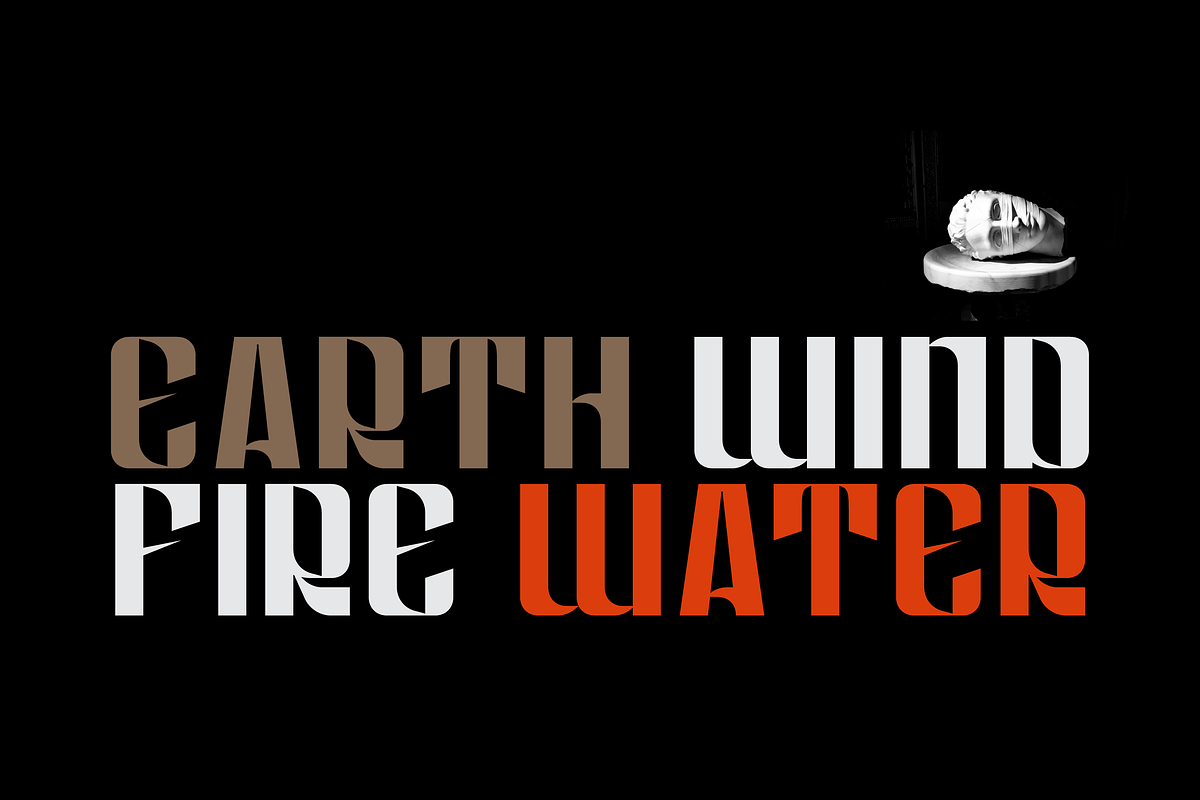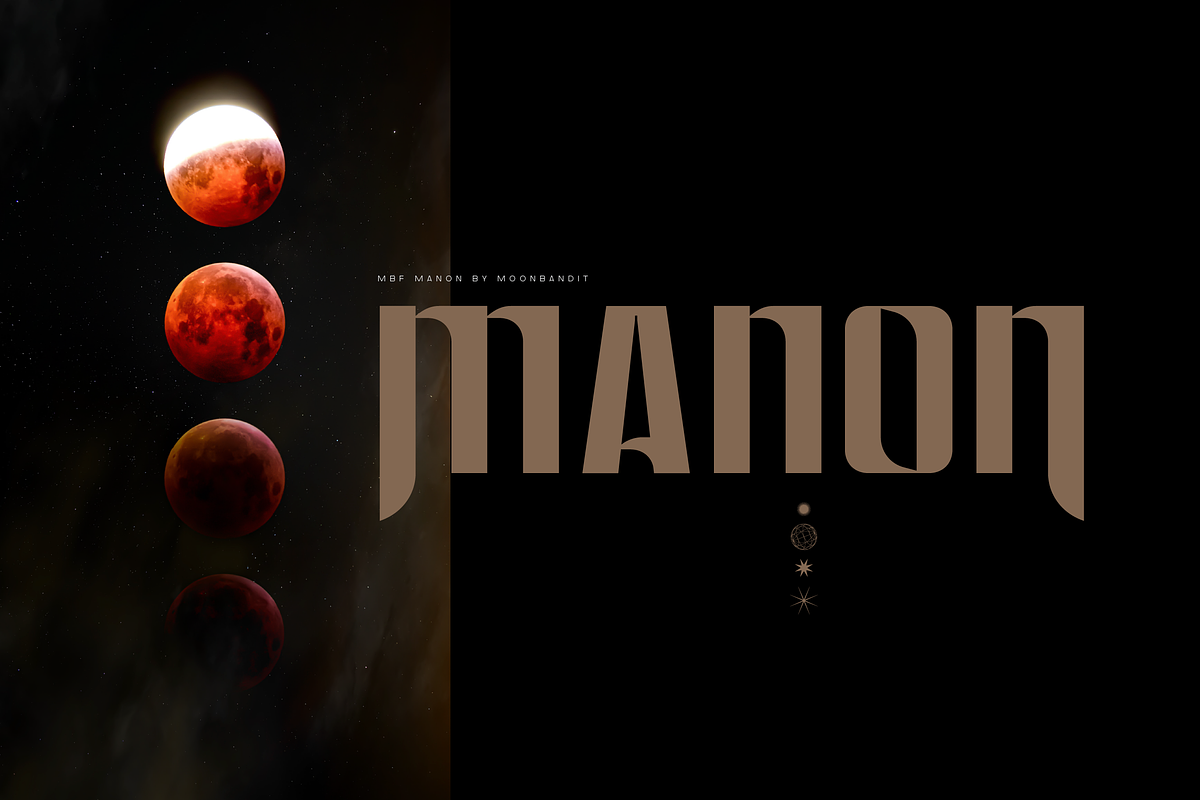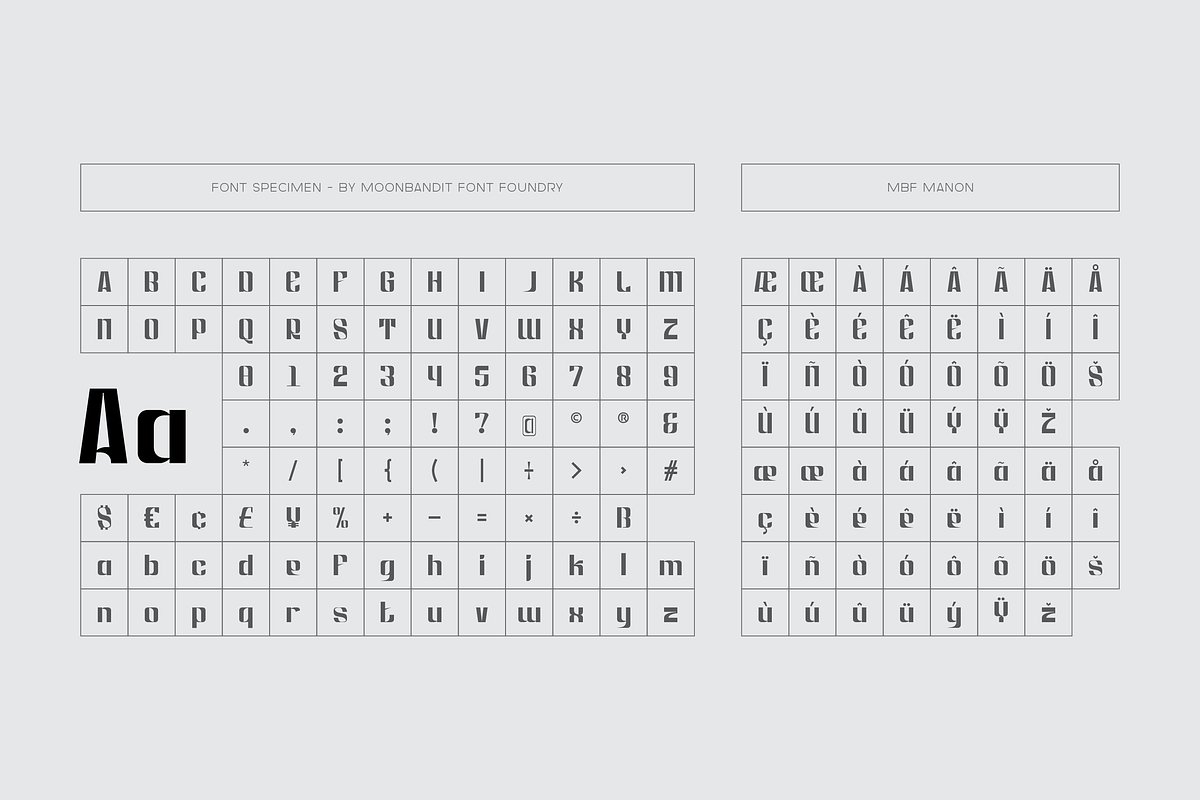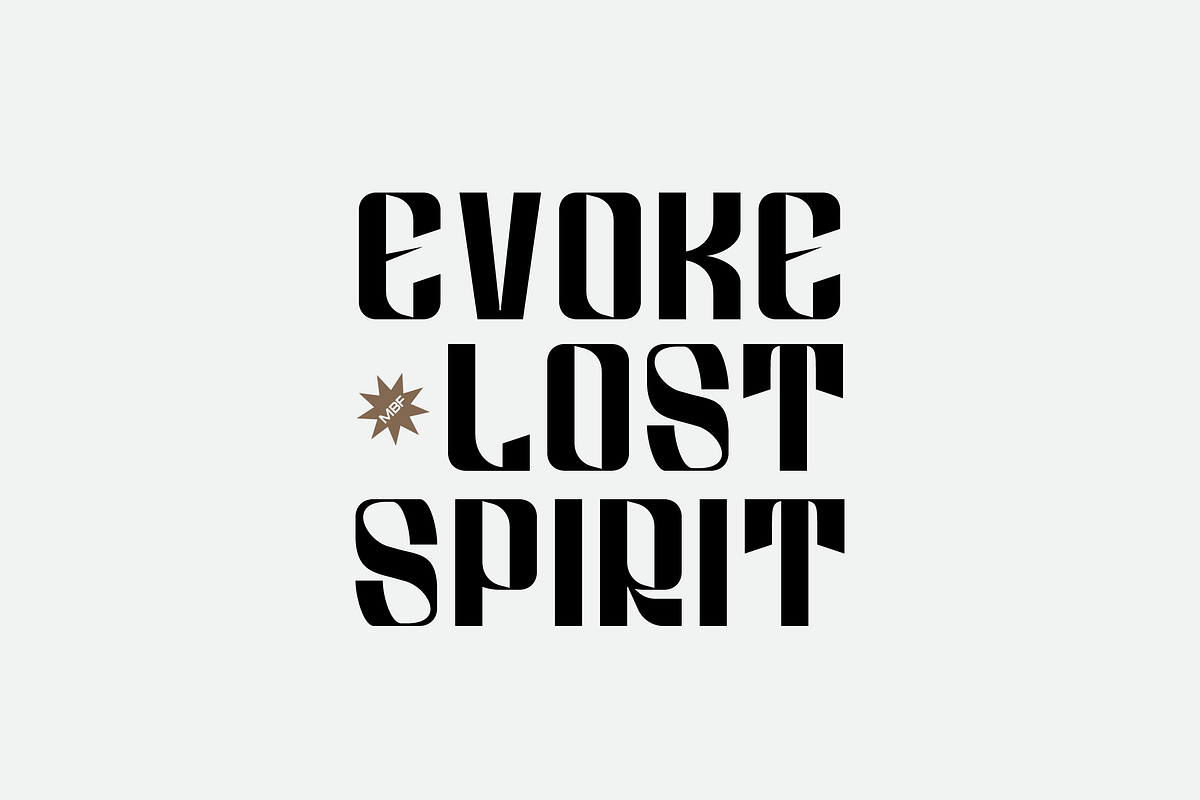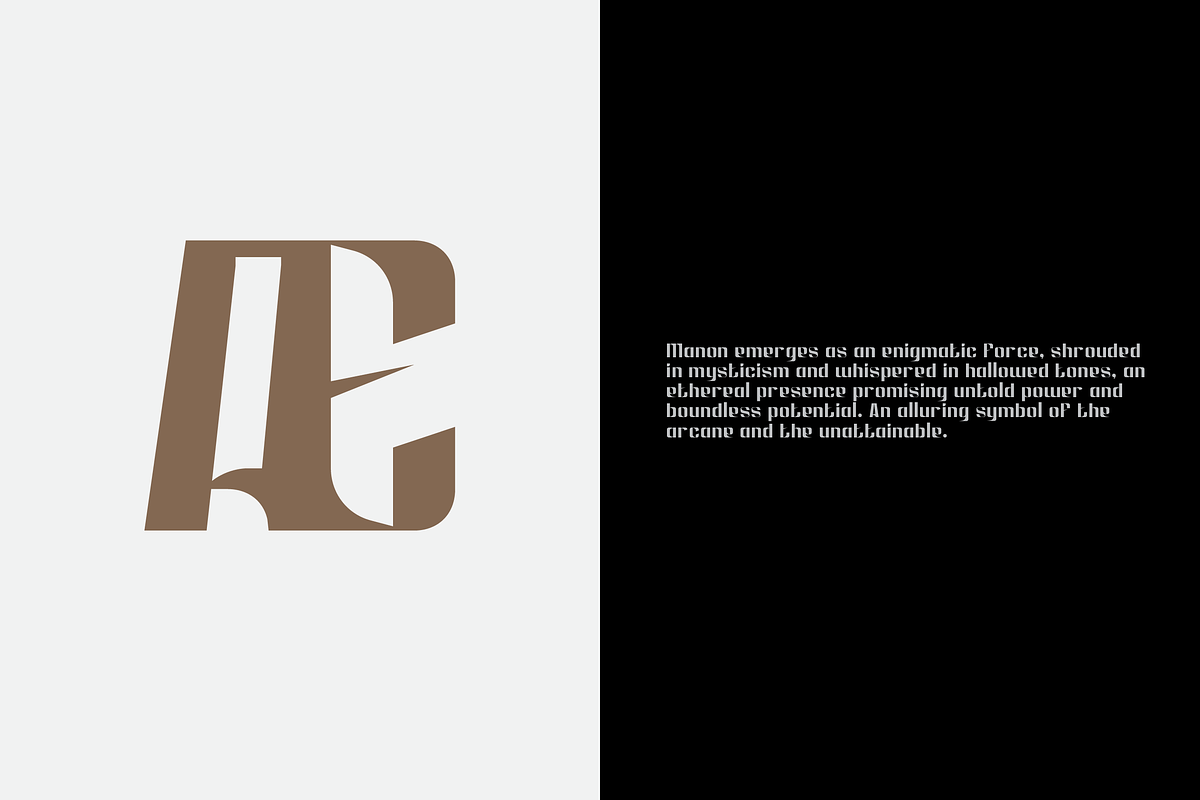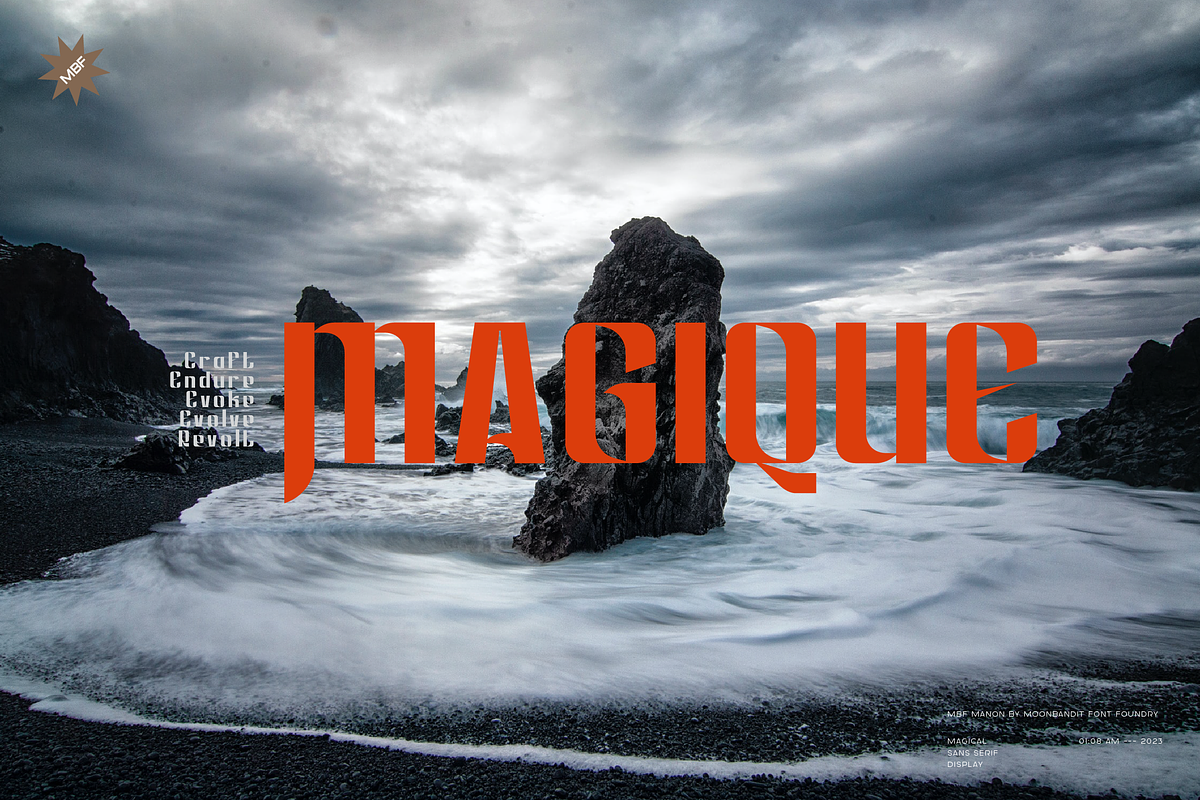
MBF Manon - Modern Condensed Display
Introducing MBF Manon, a striking modern display typeface brought to life by the creative minds at Moonbandit Font Foundry. With its clean lines, geometric forms, and contemporary elegance, MBF Manon effortlessly captures attention and commands the spotlight in any design project.
This versatile typeface is designed to shine in various settings, from eye-catching headlines on websites and posters to captivating branding elements for logos and packaging. Its well-balanced proportions and thoughtful spacing make it a perfect choice for both digital and print applications, ensuring legibility and visual impact across all mediums.
Manon's character set boasts an extensive range of glyphs, providing multilingual support and catering to diverse typography needs. The font's subtle nuances and distinctive letterforms exude a sense of modern sophistication, making it a go-to choice for designers seeking a touch of refinement and individuality in their work.
Whether you're aiming to create bold, attention-grabbing compositions or seeking a touch of elegance and class, MBF Manon is the ideal display typeface to elevate your designs and leave a lasting impression on your audience.